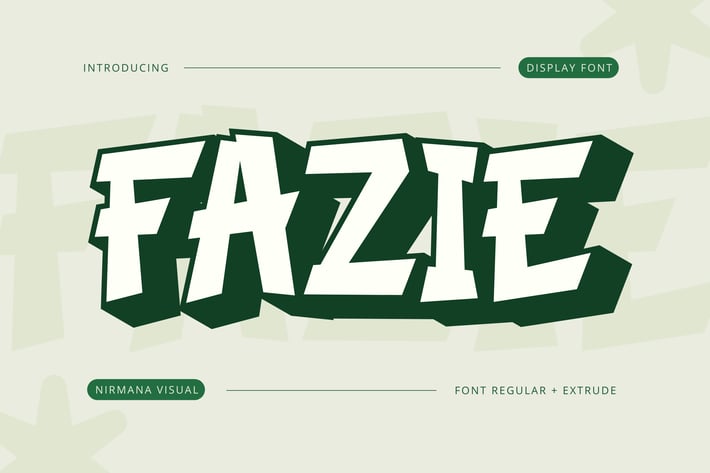
Fazie Retro - Retro Logo Font
Fazie Retro offers beautiful typographic harmony for a diversity of design projects, including logos & branding, social media posts, advertisements & product designs.
What you get : In Two Font Styles : Regular & Extrude